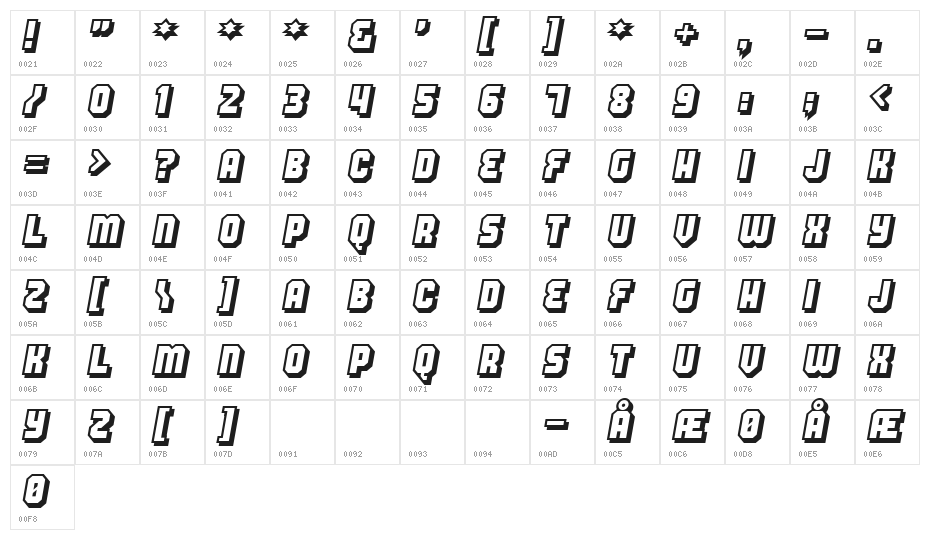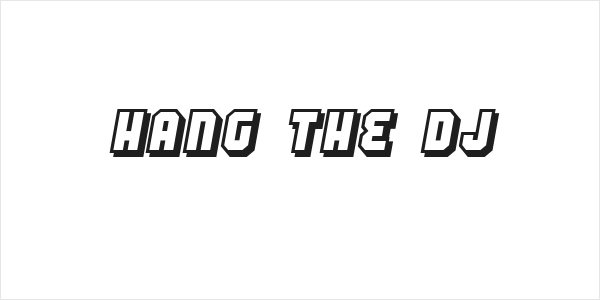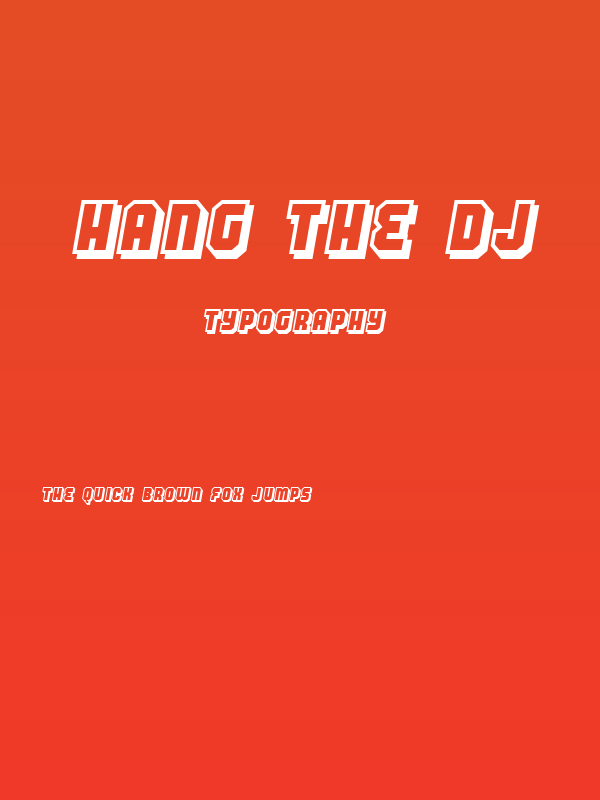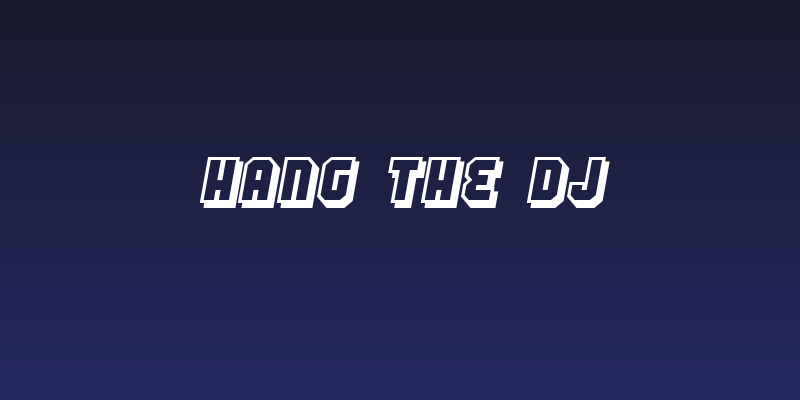
Hang the DJ Font
Hang the DJ Description
This font features a bold, three-dimensional style with a strong shadow effect, giving it a dynamic and impactful appearance. The characters are uppercase and lowercase, with numerals and a selection of special characters. Each letter is designed with a blocky, geometric form that emphasizes its boldness. The shadow effect adds depth, making the text appear as if it is popping off the page. This font is ideal for creating attention-grabbing headlines or titles. The overall style is modern and playful, with a touch of retro influence, making it suitable for a variety of creative projects.
| Proposed Projects | Ideal for posters, logos, video game graphics, and any project needing a bold, dynamic look. |